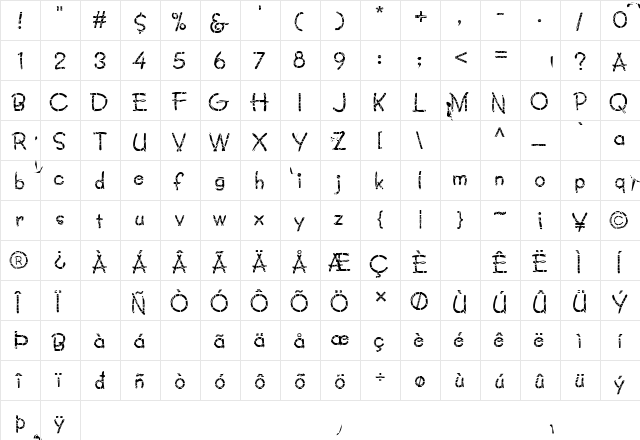
FZ JAZZY 34 CRACKED Normal Font Preview
FZ JAZZY 34 CRACKED Normal
Design Context for FZ JAZZY 34 CRACKED Typeface
FZ JAZZY 34 CRACKED is a composed and adaptable typeface that performs quietly and consistently across a wide range of design contexts.